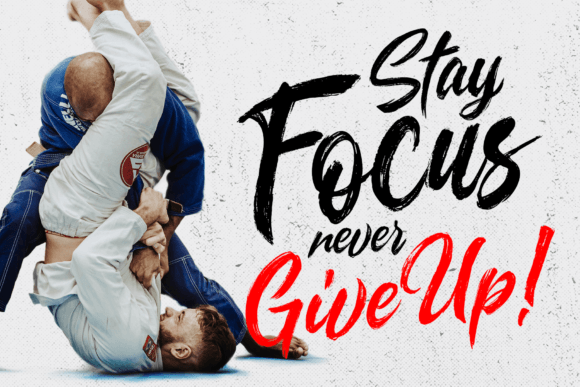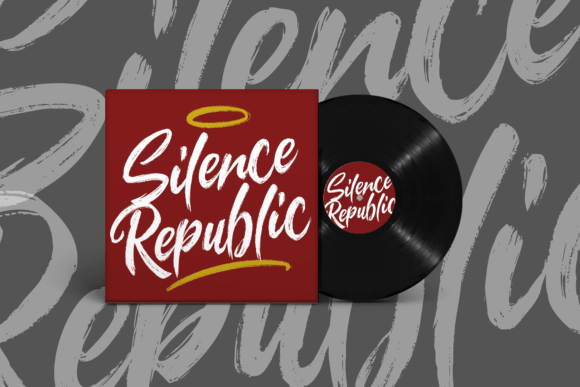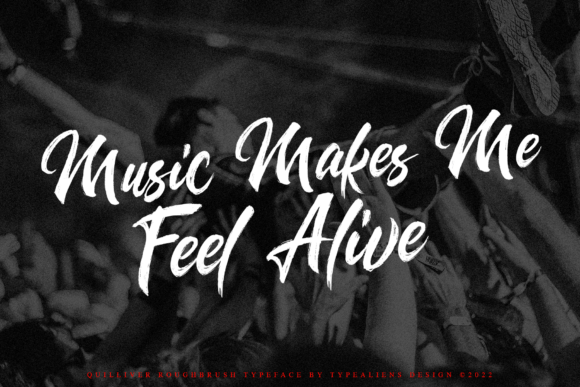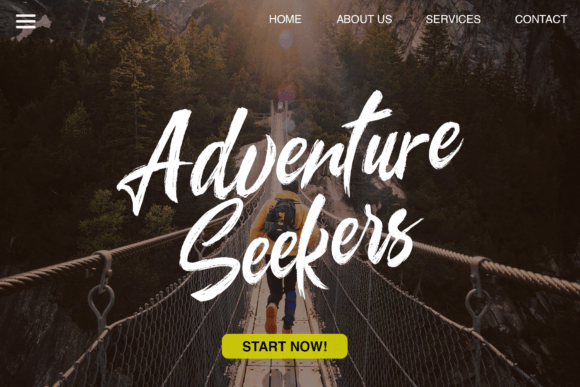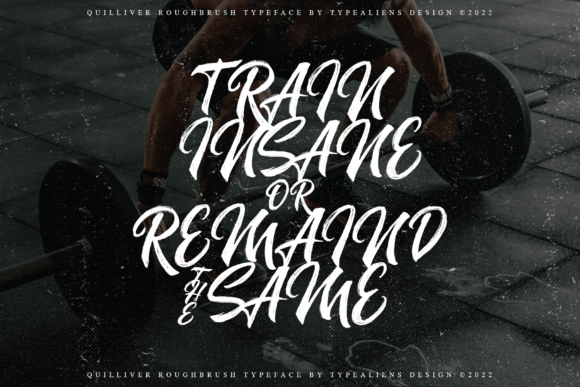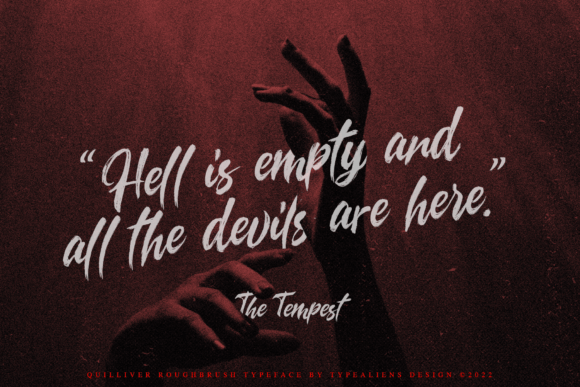
Introduction to Quilliver Font
You’ve spent hours brainstorming your creative project, pouring your heart into every detail. The perfect combination of colors, textures, and typography is finally coming together. But what if you could elevate your design to the next level with a single font? Enter the Quilliver Font, a game-changing script font that’s about to revolutionize the way you create.
Quilliver Font is more than just a stylish addition to your design – it’s a versatile tool that can be used in a wide range of creative projects, from youth fashion and skateboard brands to quotes and more. Its unique texture brush design gives it a high-quality feel that’s perfect for modern designs. And the best part? With a transparent background, you can easily overlay it on any image or background, making it a valuable design resource for any project.
Key Features of Quilliver Font
- Unique Hand-Drawn Design: The Quilliver Font is a one-of-a-kind design resource that offers a high-quality, hand-drawn look perfect for creative projects.
- Transparent Background: The Quilliver Font features a transparent background, allowing for seamless integration with other design elements.
- Perfect for Digital Art: With its high resolution and crisp details, the Quilliver Font is ideal for digital art projects, including graphic design, illustrations, and animations.
- Supports Various Languages: The font supports a wide range of languages, including English, Spanish, French, and many more, making it a versatile design resource for global creative projects.
Honest Review: Quilliver Font
I recently came across the Quilliver Font, and I must say it’s a fantastic addition to any designer’s toolkit. With its unique and elegant design, it’s perfect for any creative project that requires a touch of sophistication.
Here are some of the things that work well with the Quilliver Font:
- ✨ High quality design that’s perfect for printing and digital use.
- ✨ Transparent background, making it easy to use with any image or design.
- ✨ Wide range of font styles and weights, giving designers plenty of options for their project.
- ⚠️ Limited support for certain languages, which might be a concern for designers who need to work with non-English texts.
- ⚠️ Some users may find the font a bit too elegant, which might not be suitable for all types of projects.
Overall, I’m impressed with the Quilliver Font. It’s a high-quality design resource that’s perfect for designers who need a sophisticated and elegant font for their creative project. While it has some limitations, I think it’s well worth the download.
For optimal results, pair the Quilliver Font with a high-quality image or background to create a visually stunning design. You can also experiment with different font sizes and colors to add depth and emphasis to your creative project.
Common Use Cases for Quilliver Font
The Quilliver Font is ideal for a variety of creative projects, including brochures, posters, and business cards. Its high-quality design and transparent background make it perfect for modern and elegant designs.